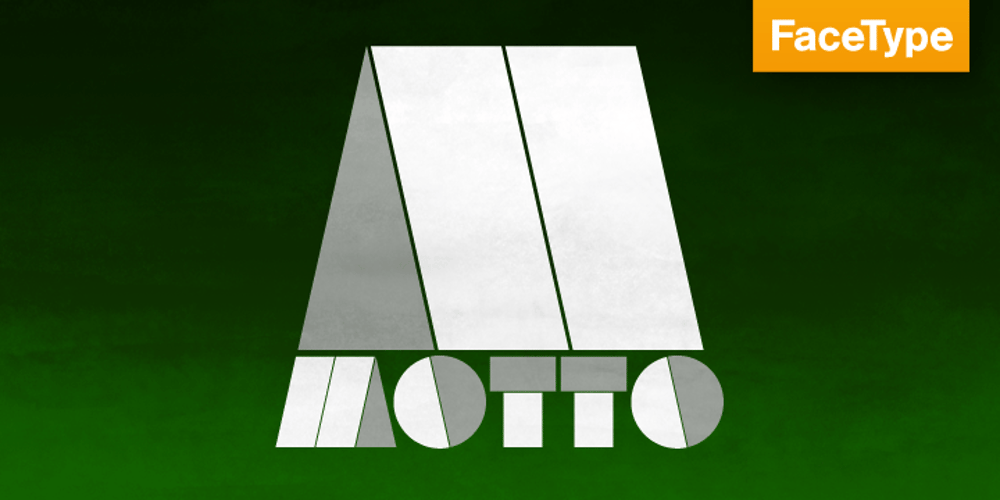
Motto Font Family was designed by Marcus Sterz and published by FaceType. Motto contains 3 styles and family package options. Motto is a beautiful Art Deco font in the tradition of the Italian Futurismo of the early 20th Century. Please Note: Combining Bicolor A and B you will create astounding multicolored pieces of typography. To achieve the two-tone effect shown in the samples, you need to use an application that supports layers such as Adobe Illustrator, Adobe InDesign, Adobe PhotoShop, CorelDRAW or Quark.